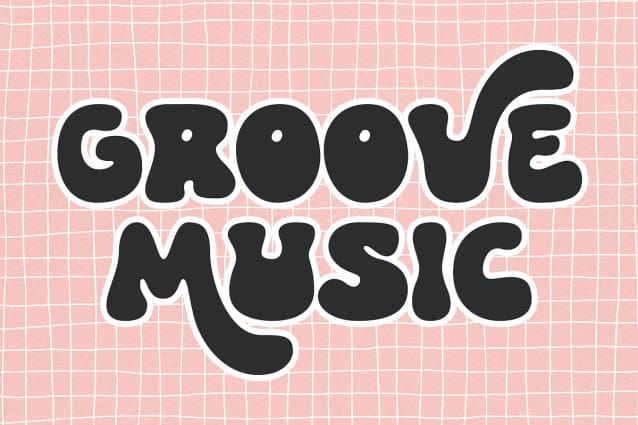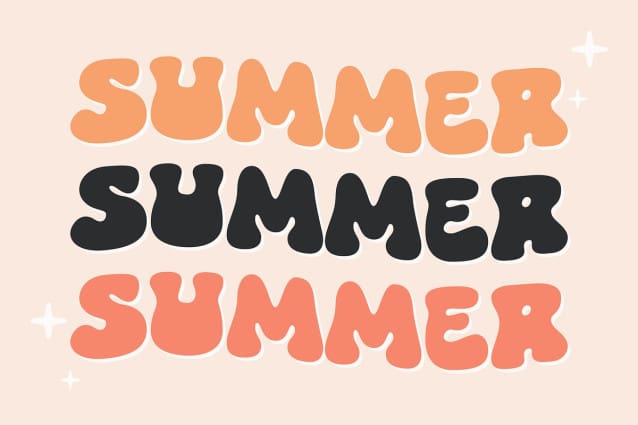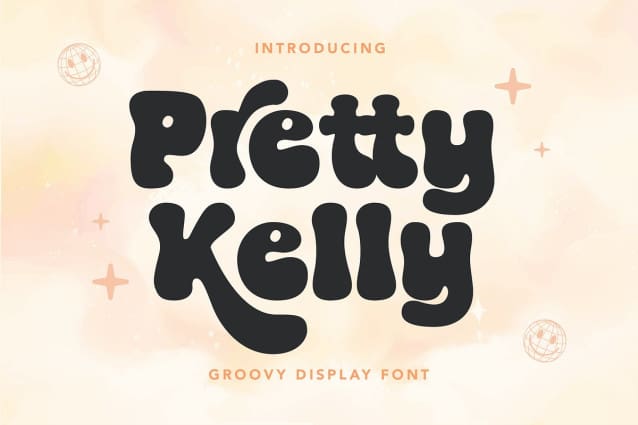
Pretty Kelly Font
Pretty Kelly font is a cute and fun font. This font I created has been very widely used this year & is very versatile, it goes well with a variety of designs, elevating them to the highest level. Add this font to your favorite creative ideas and see the results!